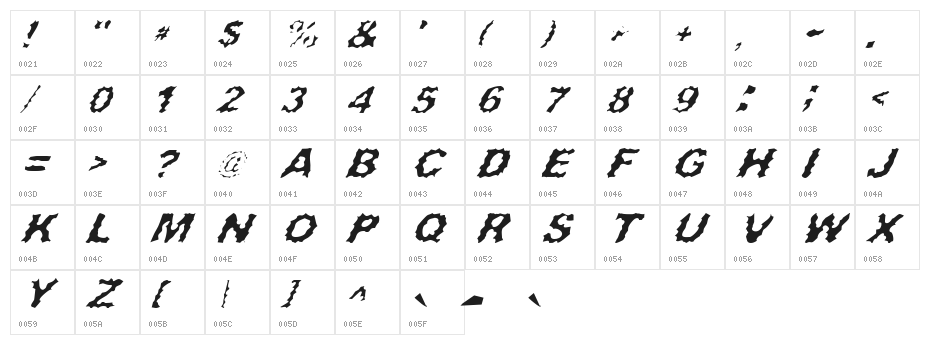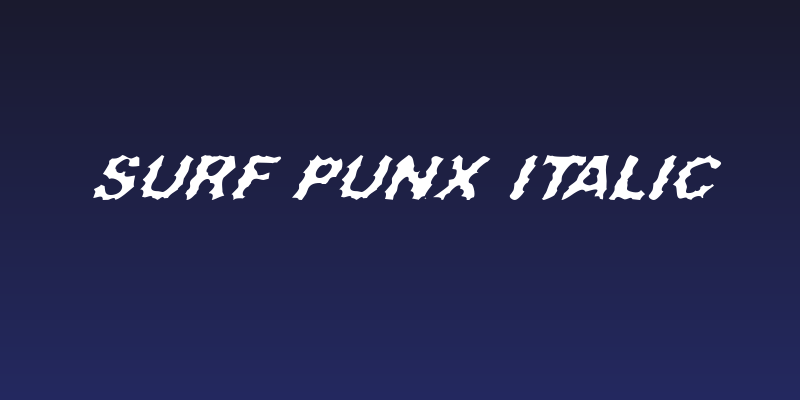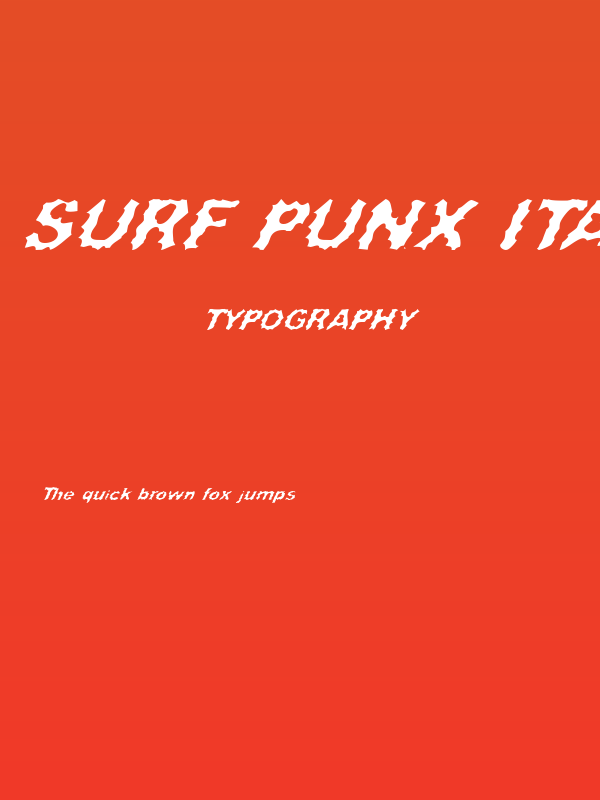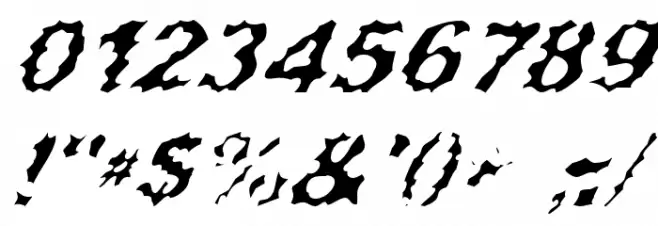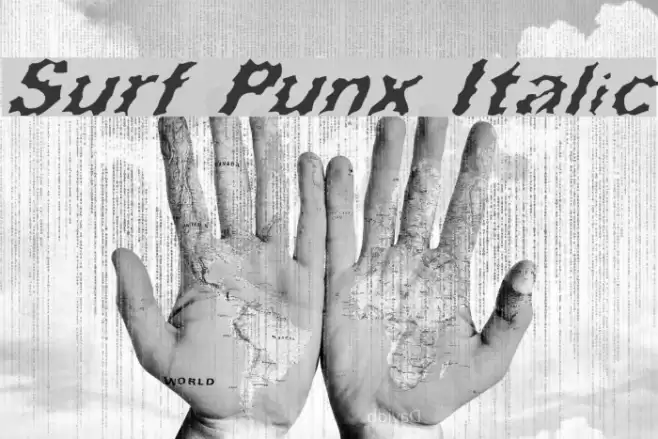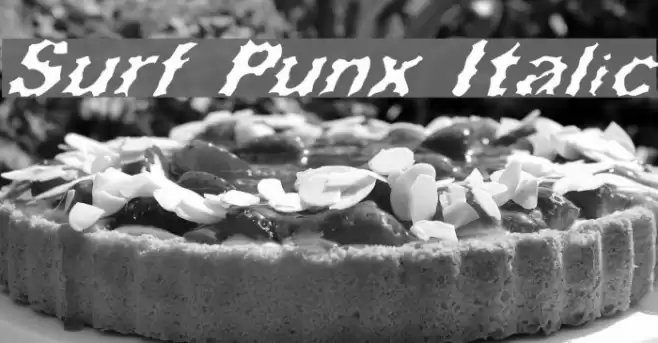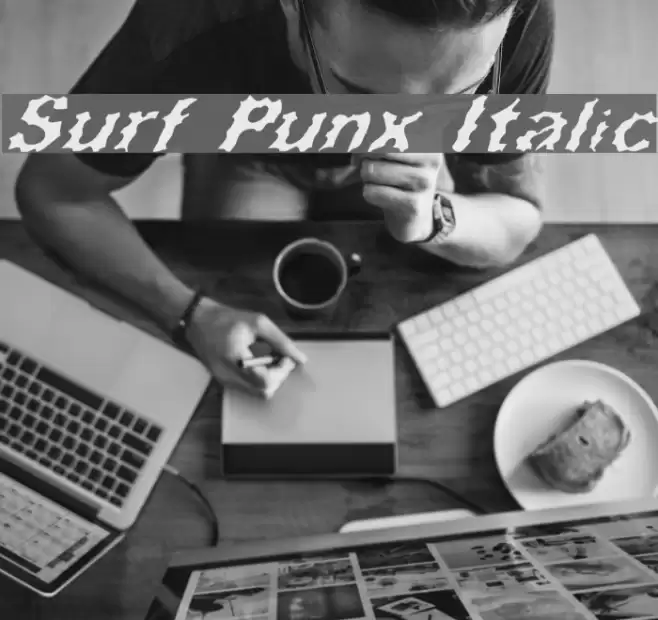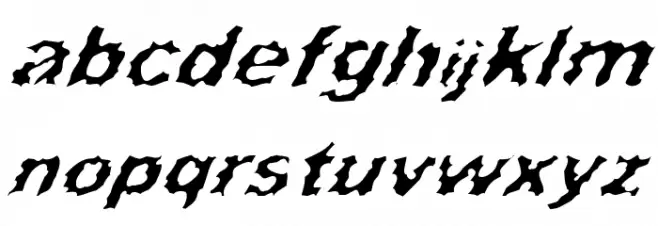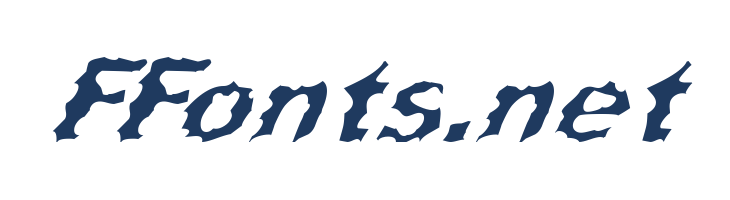
Surf Punx Italic Font
| 全体的なスタイル | Modern, Edgy |
| おすすめプロジェクト | Perfect for surf-themed designs, punk rock album covers, skateboarding brands, or any project needing a bold, rebellious aesthetic. |